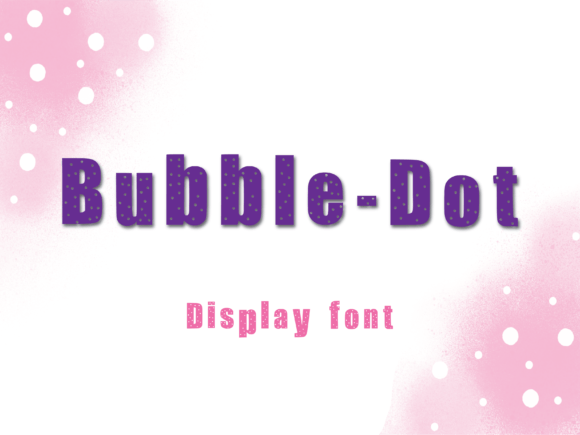
Introduction to Bubble-dot Font
Bubble-dot is a display font that has a unique and playful typeface featuring letters made up of dots.
This font is perfect for use in designs that require a fun and whimsical look, as the dots add a lighthearted and cheerful feel to the text .
Why Choose Bubble-dot Font?